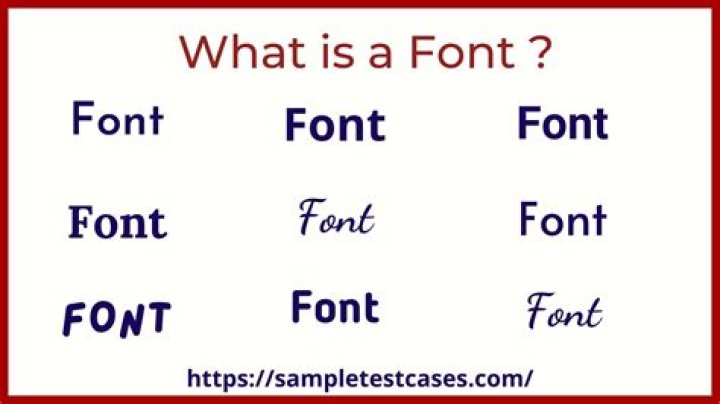
A font is a graphical representation of text that may include a different typeface, point size, weight, color, or design. Software programs like Microsoft Word, Microsoft Excel, and WordPad allow users to change the font used when typing text in the document or spreadsheet, as do web designers.
What does the word font mean in art?
Designers can specialize in typography, the art of designing and arranging text visually. Typeface, or font family, is an alphabet designed so that all the letters and symbols have similar features. For instance, Times, Arial, and Minion are all typefaces. Font, then, refers to the specific style of a typeface.
What is font short answer?
A font is a set of printable or displayable text character s in a specific style and size. The type design for a set of fonts is the typeface and variations of this design form the typeface family . A bitmap font is a digital represention of a font that is already fixed in size or a limited set of sizes.
What is the meaning of font in computer?
A computer font is implemented as a digital data file containing a set of graphically related glyphs. A computer font is designed and created using a font editor. In the terminology of movable metal type, a font is a set of pieces of movable type in a specific typeface, size, width, weight, slope, etc.
What is another word for font?
typeface
You can think of typeface as another term for font (the two words are often used interchangeably), although it’s more accurate to call a typeface a “font family,” a group of fonts with similar designs. Typefaces have official names like Comic Sans, Garamond, and Helvetica.
What are fonts in writing?
A font is a collection of characters with a similar design. These characters include lowercase and uppercase letters, numbers, punctuation marks, and symbols. Changing the font can alter the look and feel of a block of text.
How many different fonts are there?
What is the purpose of font?
Fonts can create mood and atmosphere. Fonts can give visual clues about the order a document should be read in and which parts are more important than others. Fonts can even be used to control how long it takes someone to read a document.
What are the types of font?
5 Types of Fonts & When to Use Them
- Serif. Serif fonts are often considered the most traditional kind of font.
- Sans Serif. Sans-serif fonts have been steadily growing in popularity in recent years.
- Slab Serif. Slab serif fonts are a branch of the overall serif font family we discussed earlier.
- Script.
- Decorative.
Which is the font style?
In a web browser, font style is a CSS (custom style sheet) property used in HTML and ASP.NET programming, defining the font style for text. There are four possible options for font style. If font style is not specified, “normal” is the default option. Italic and oblique are slanted versions of the selected font.
To use your favorite font in Word all the time, set it as the default.
- Go to Format > Font > Font. You can also press and hold. + D to open the Font dialog box.
- Select the font and size you want to use.
- Select Default, and then select Yes.
- Select OK.
What is the most commonly used font in Word?
They appear in order of popularity.
- Helvetica. Helvetica remains the world’s most popular font.
- Calibri. The runner up on our list is also a sans serif font.
- Futura. Our next example is another classic sans serif font.
- Garamond. Garamond is the first serif font on our list.
- Times New Roman.
- Arial.
- Cambria.
- Verdana.
Why do we use font style?
Using fonts that are easy to read are key to presentation. The fonts add value to your text. It helps readers to perceive information from the text. The correct choice of color, font and text size can prove to be vital for attracting your target audience.
What are the major types of fonts?
Typography Basics There are five basic classifications of typefaces: serif, sans serif, script, monospaced, and display. As a general rule, serif and sans serif typefaces are used for either body copy or headlines (including titles, logos, etc.), while script and display typefaces are only used for headlines.